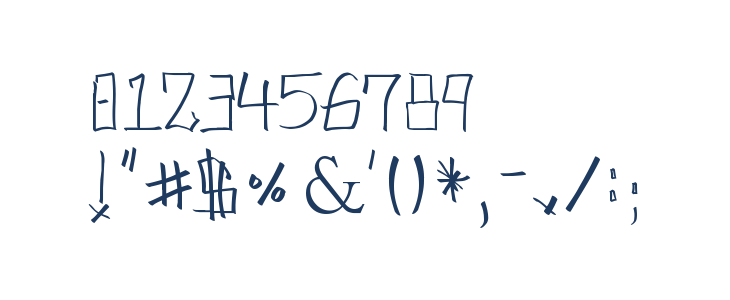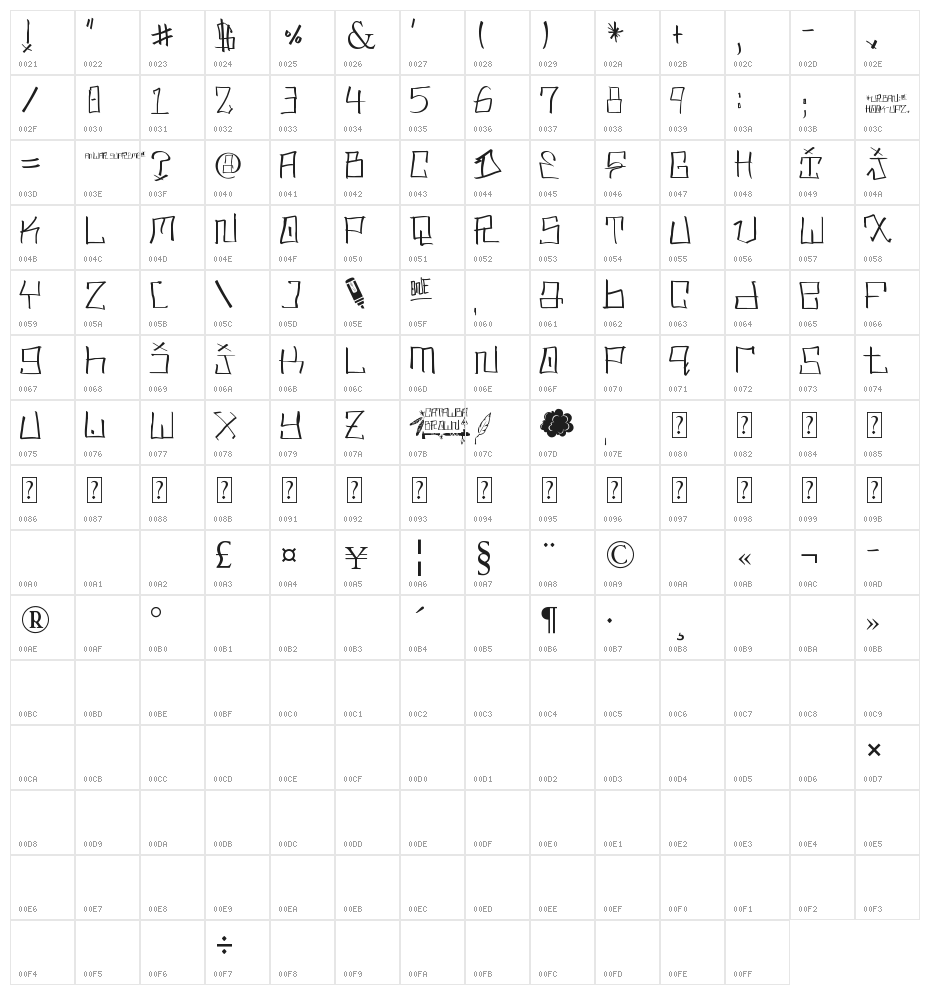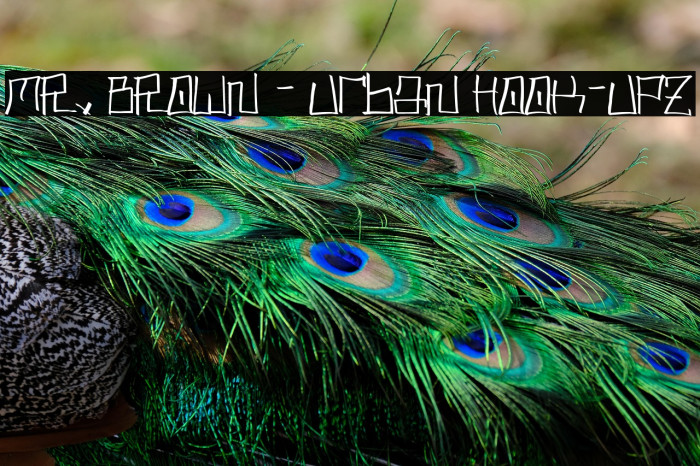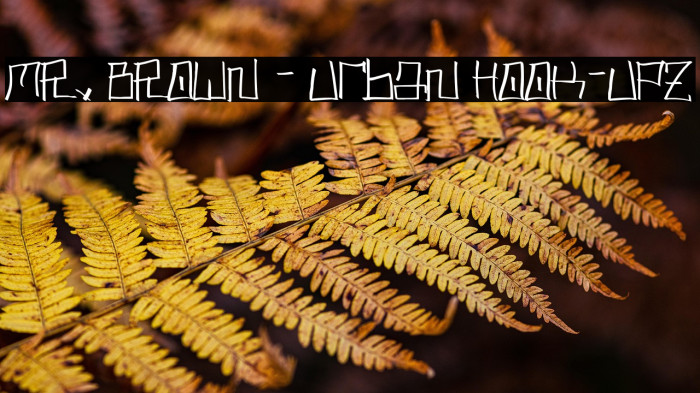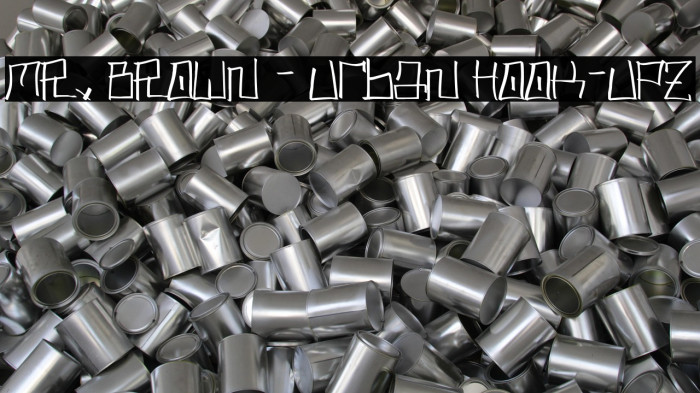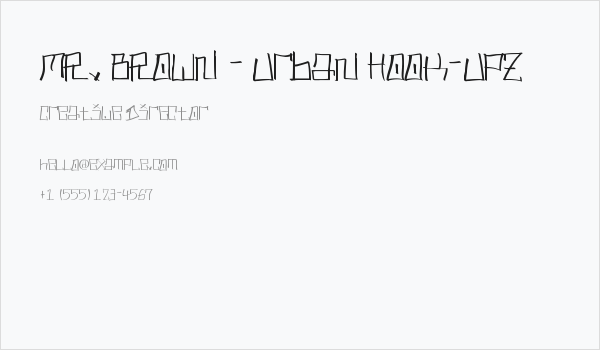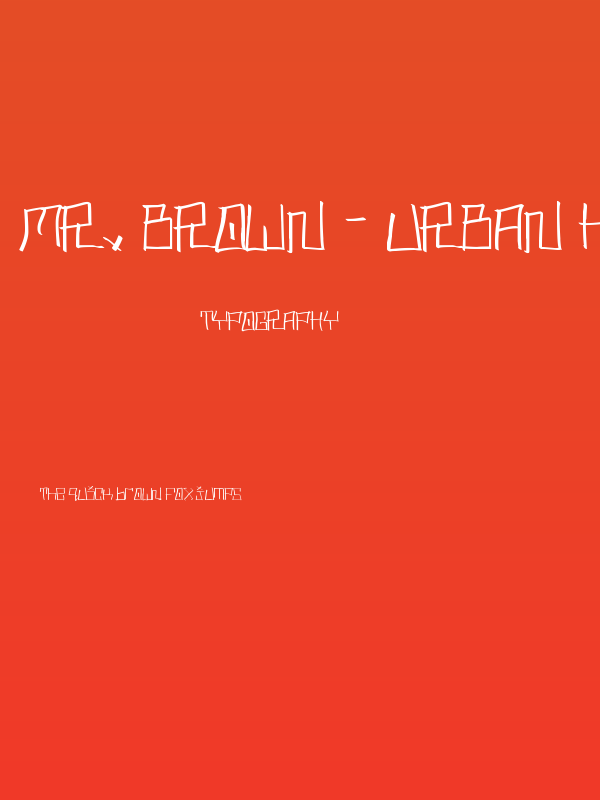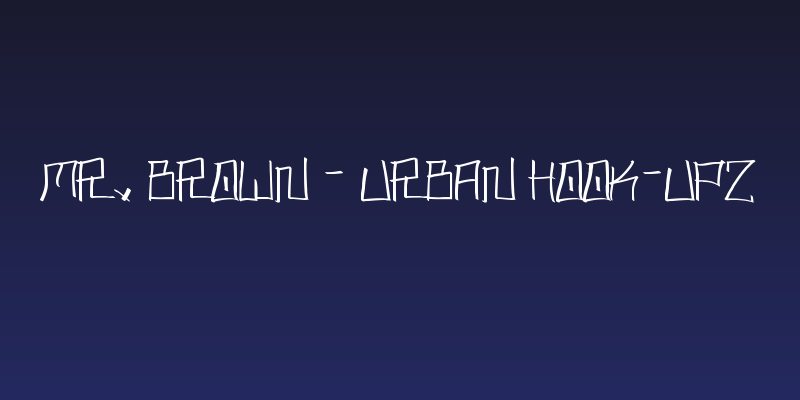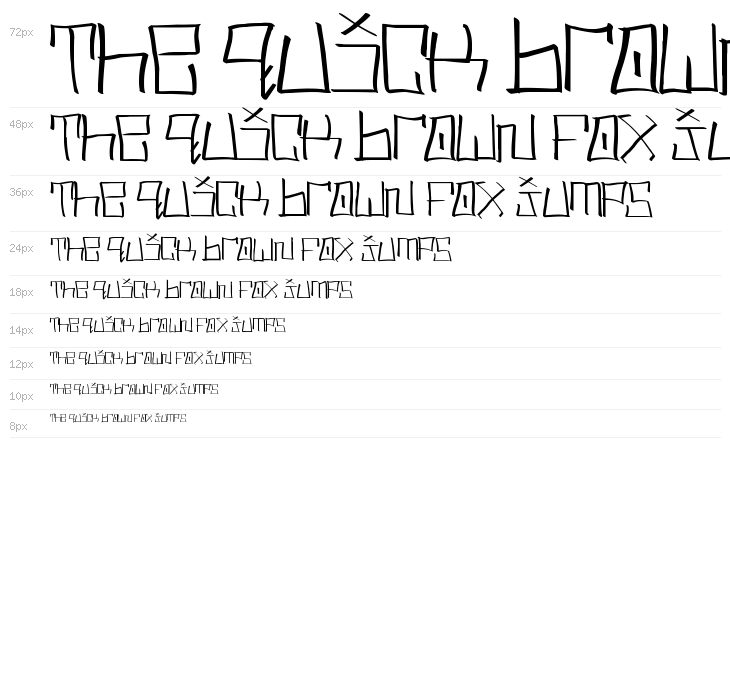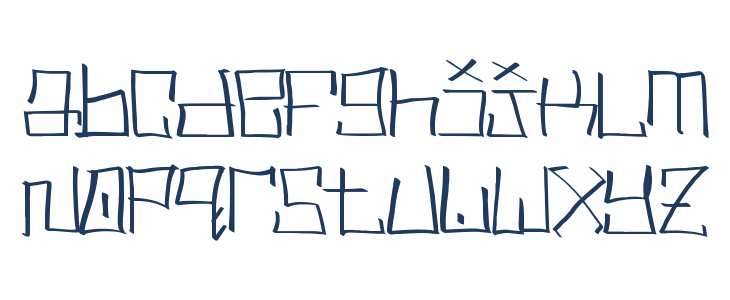
MR. BROWN - Urban Hook-Upz Font
MR. BROWN - Urban Hook-Upz Description
This font features a bold, graffiti-inspired style with angular, sharp edges and a hand-drawn appearance. The letters are characterized by their irregular shapes and dynamic lines, giving them a sense of movement and energy. The uppercase and lowercase letters maintain a consistent style, with a slightly condensed width that adds to the urban, edgy feel. Numbers and special characters are designed with the same aesthetic, ensuring a cohesive look across all elements. The font's unique style makes it stand out, ideal for projects that require a bold and unconventional typeface.
| Overall Style | Urban, Graffiti, Edgy |
| Proposed Projects | Ideal for street art designs, urban-themed posters, music album covers, and edgy branding projects. |